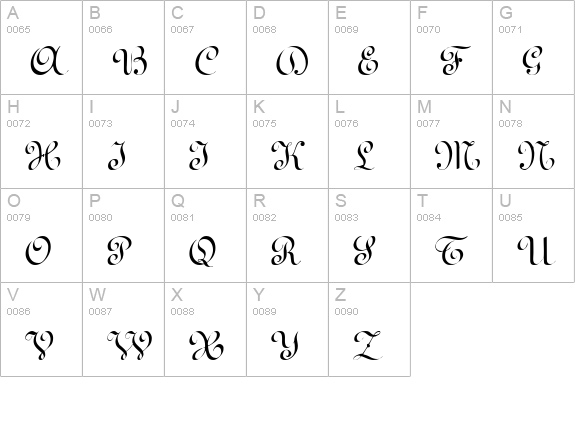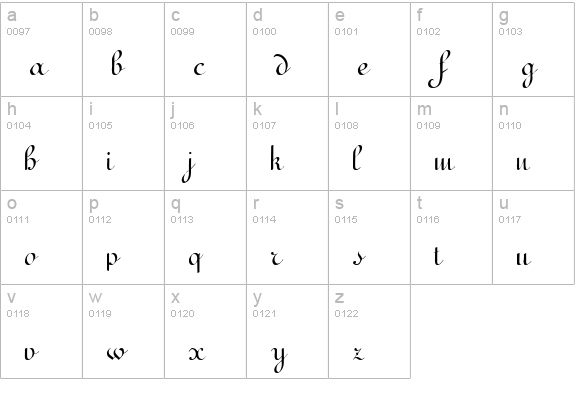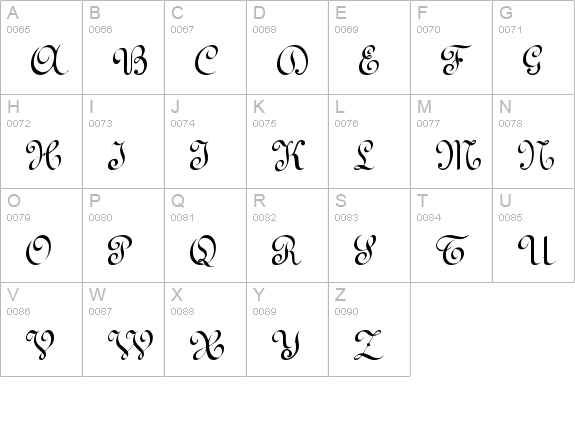
Introducing Terpsichore™, a stunning and versatile font that will bring an enchanting touch to any design project. With its elegant curves and graceful lines, this font embodies the spirit of Terpsichore, the Greek muse of dance and chorus. Terpsichore™ is not just visually captivating, but also incredibly practical. Whether you're designing a logo, crafting invitations, or creating eye-catching headlines, this font will effortlessly elevate your work to new heights. Its timeless beauty and versatility make it suitable for a wide range of applications, from fashion and beauty to editorial and branding. But what truly sets Terpsichore™ apart is the fact that it is free. Yes, you heard that right! This exquisite font is freely available to download at FontsMarket.com. We believe in the power of creativity and accessibility, and we want to provide designers and enthusiasts with the tools they need to bring their visions to life. Downloading Terpsichore™ is a breeze. Simply visit FontsMarket.com, search for Terpsichore™, and with just a few clicks, you'll have this enchanting font at your fingertips. Its high-quality design and extensive character set ensure that you'll have everything you need to create captivating and professional designs. So why wait? Unleash your creativity and let Terpsichore™ dance its way into your next design project. Download it for free today at FontsMarket.com and experience the magic of this truly remarkable font.